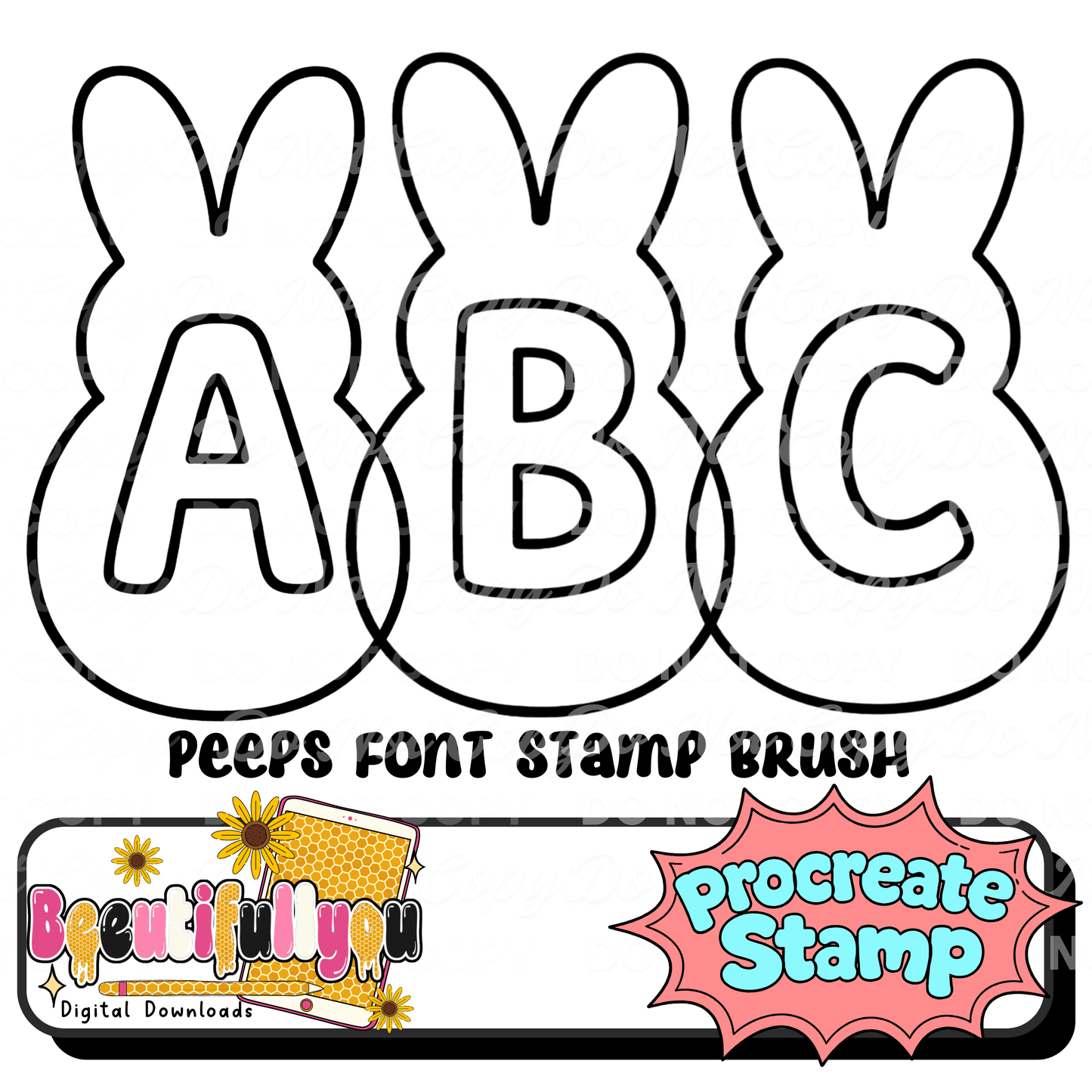
Create adorable Easter lettering with this Peep Bunny Alphabet Procreate Stamp Brush! This fun bunny-shaped letter builder makes it easy to create playful Easter-themed typography for shirts, stickers, sublimation designs, and digital artwork.
Each letter features a cute bunny silhouette shape with space for adding your own lettering, patterns, colors, or textures, making it perfect for designing unique Easter graphics.
Designed for Procreate, this stamp brush allows you to quickly build custom bunny letter designs with just a tap.
Perfect for digital artists, designers, and creators who want a fun seasonal lettering tool.
Design Features
• Bunny-shaped letter builder style
• Perfect for Easter designs
• Clean outline style for easy customization
• Ideal for creating custom alphabet designs